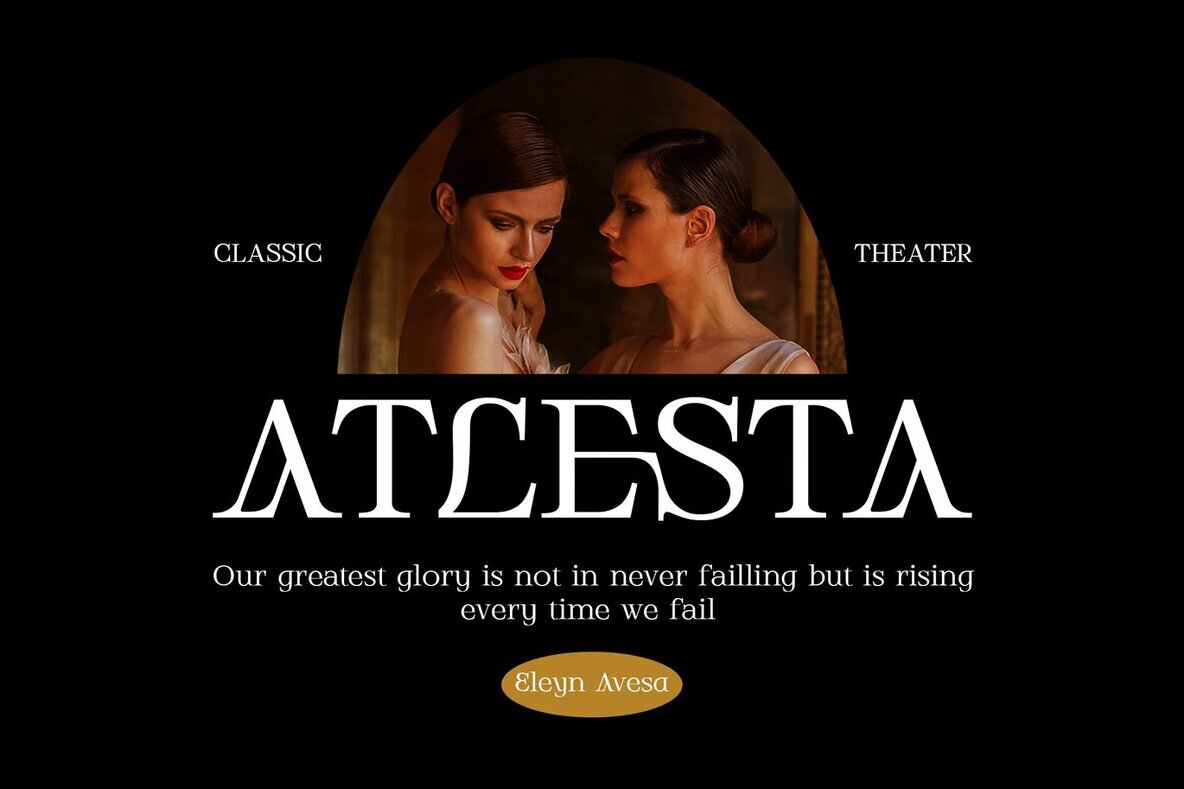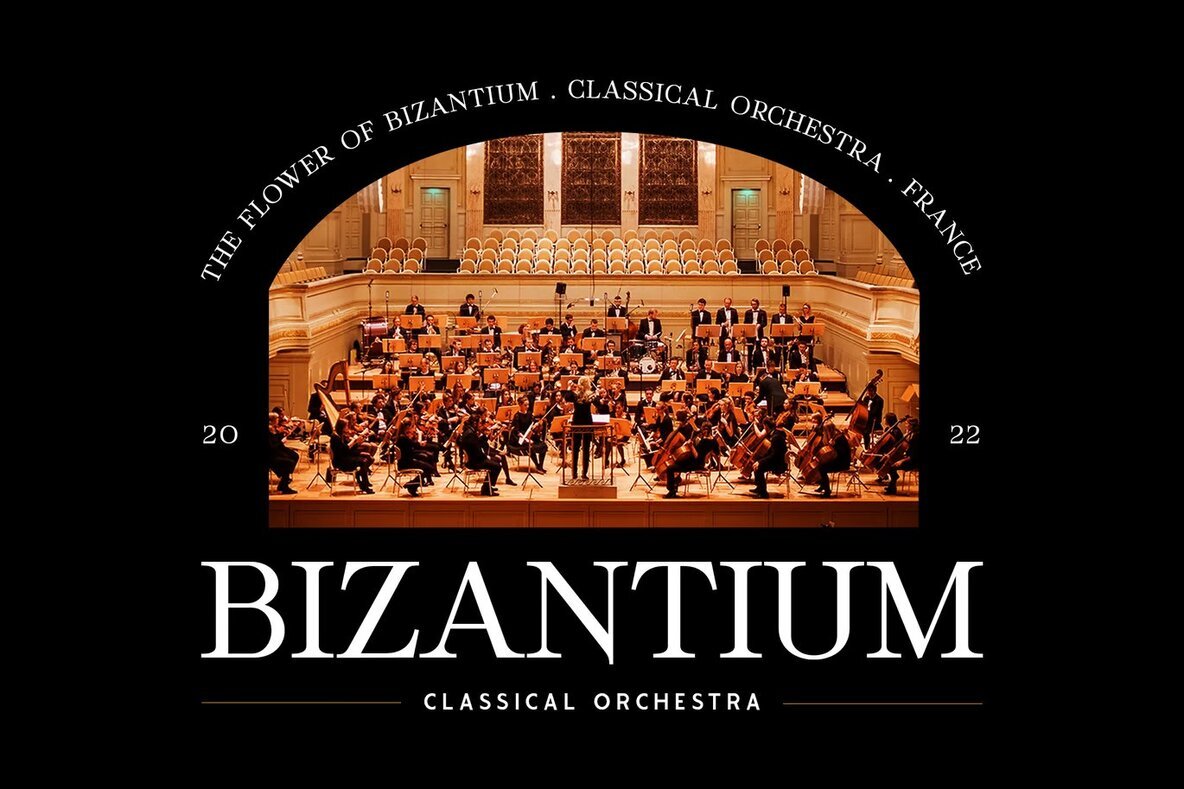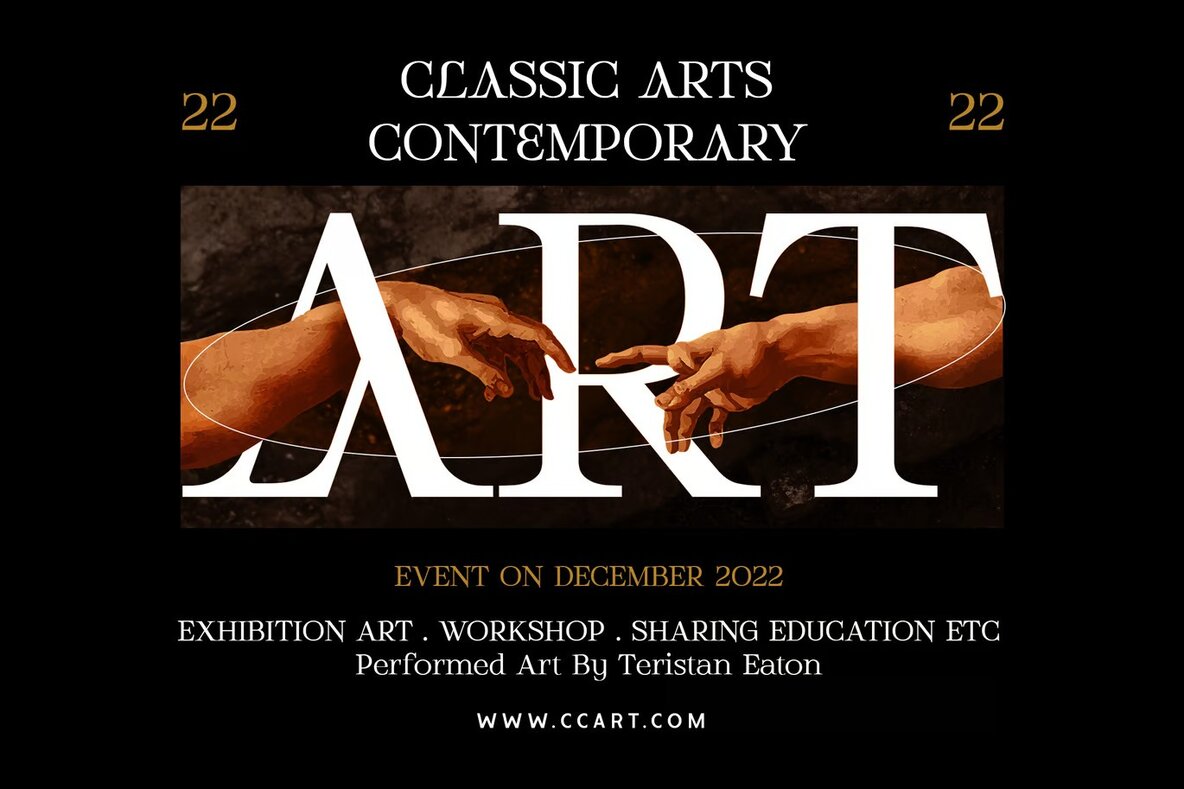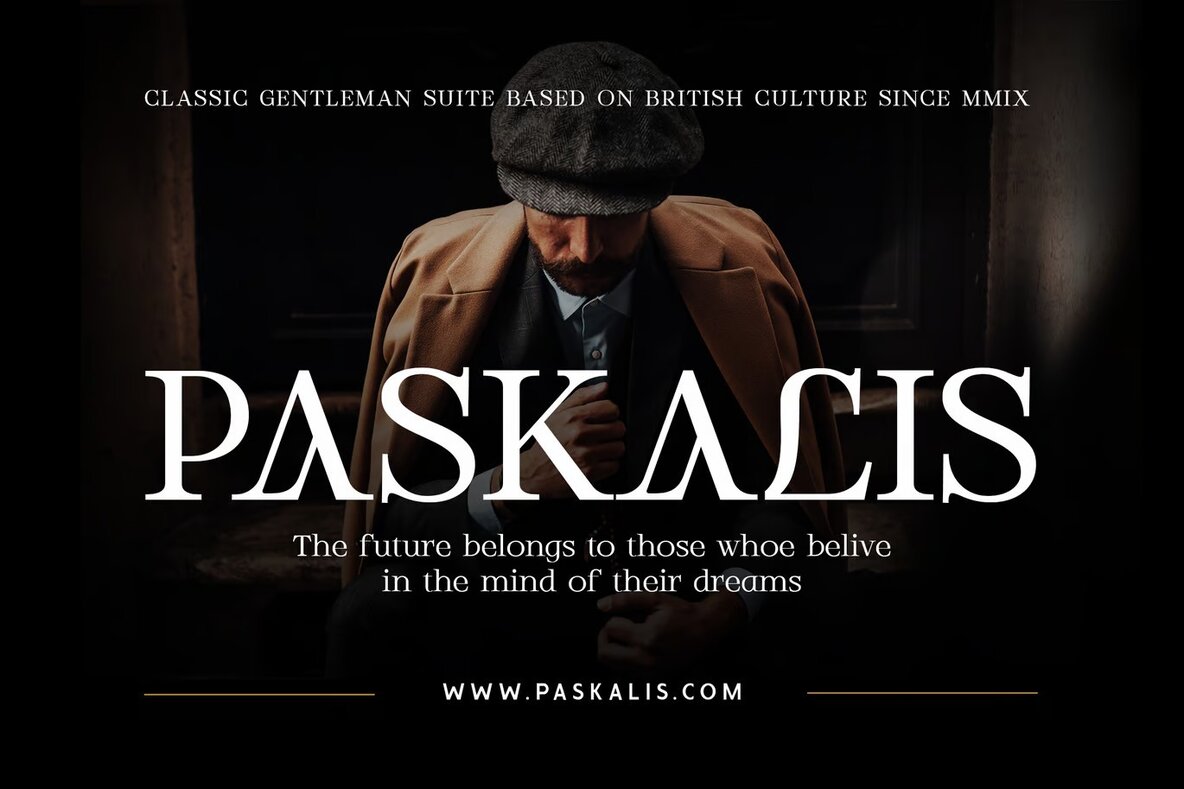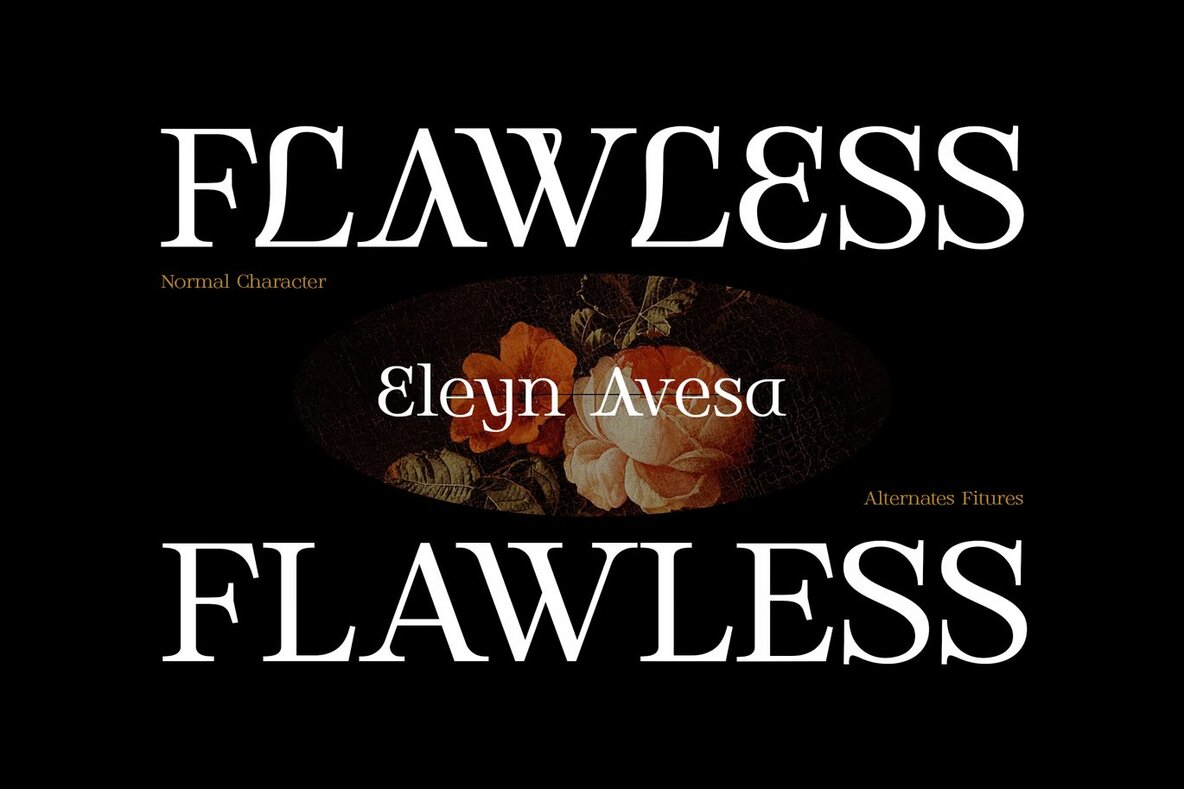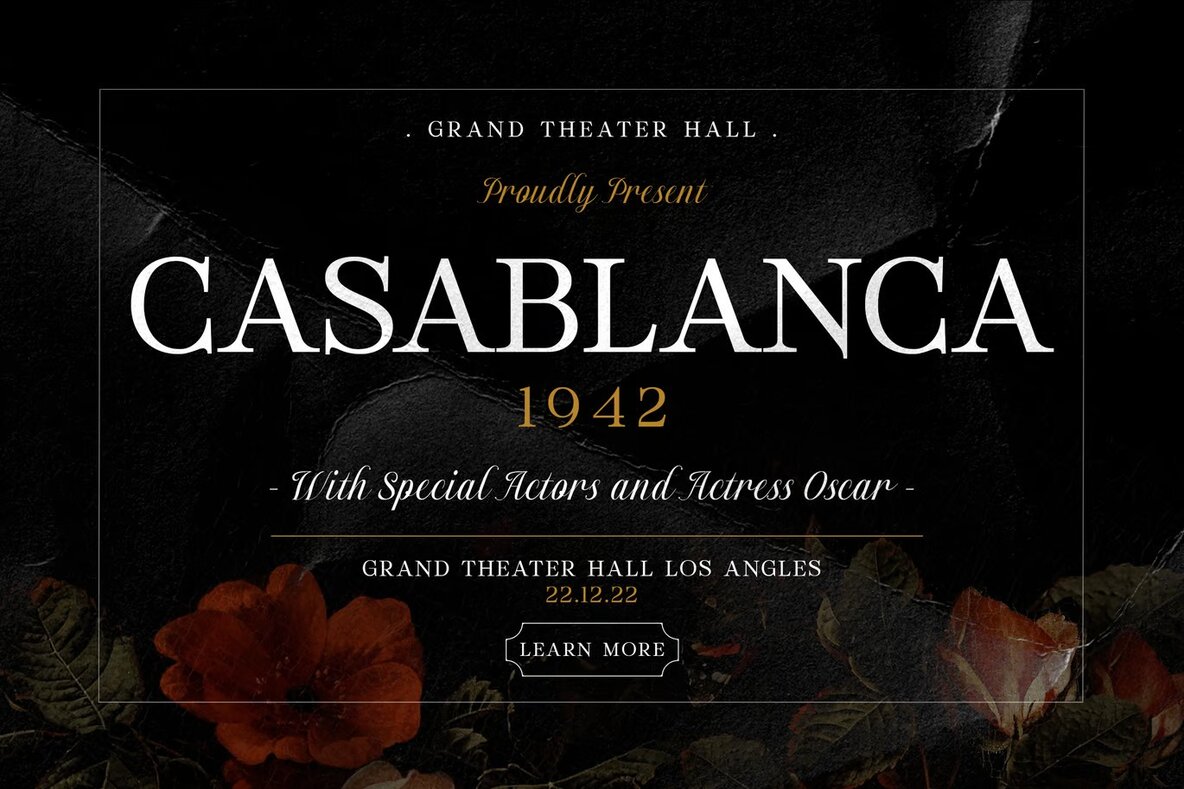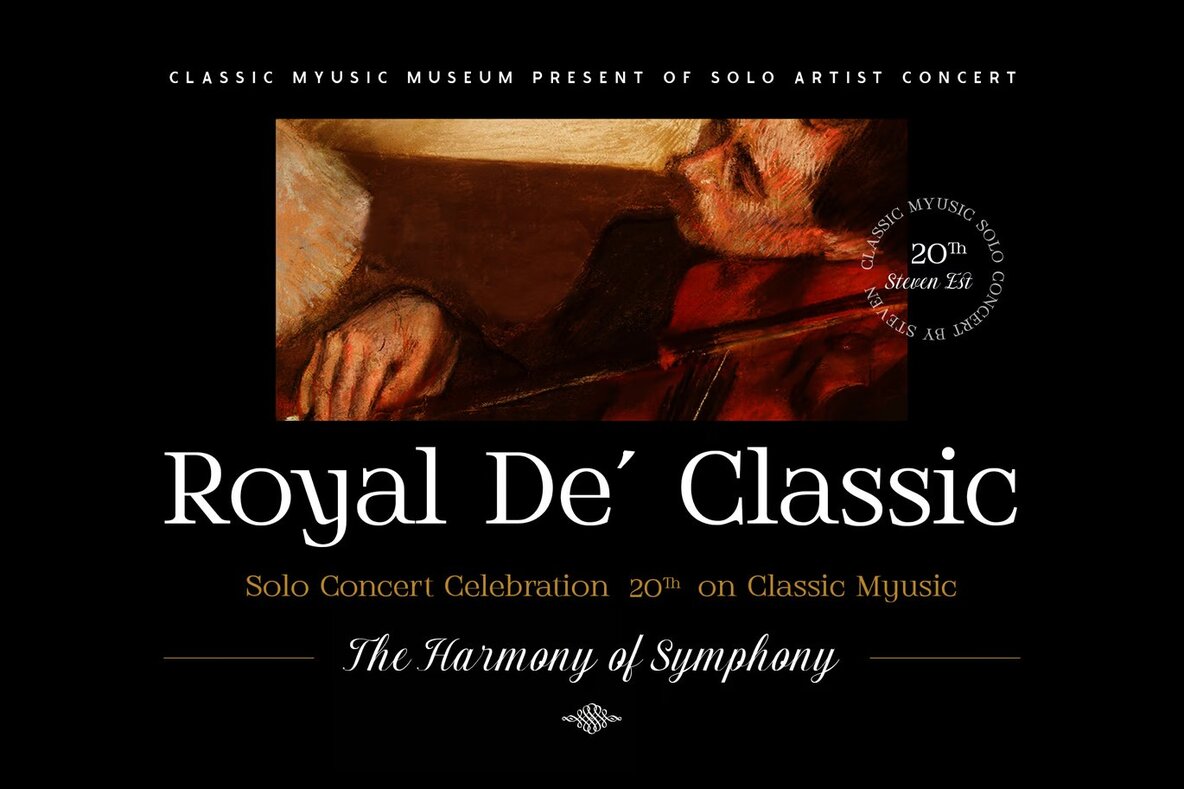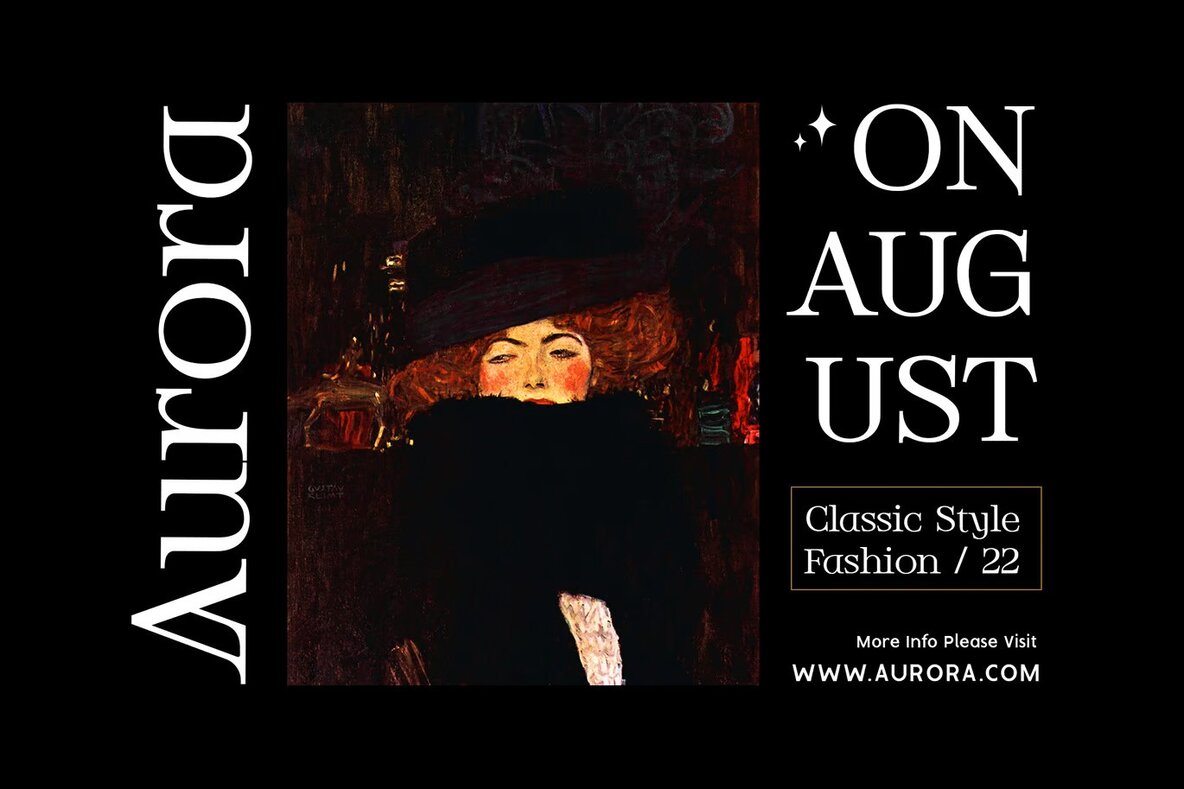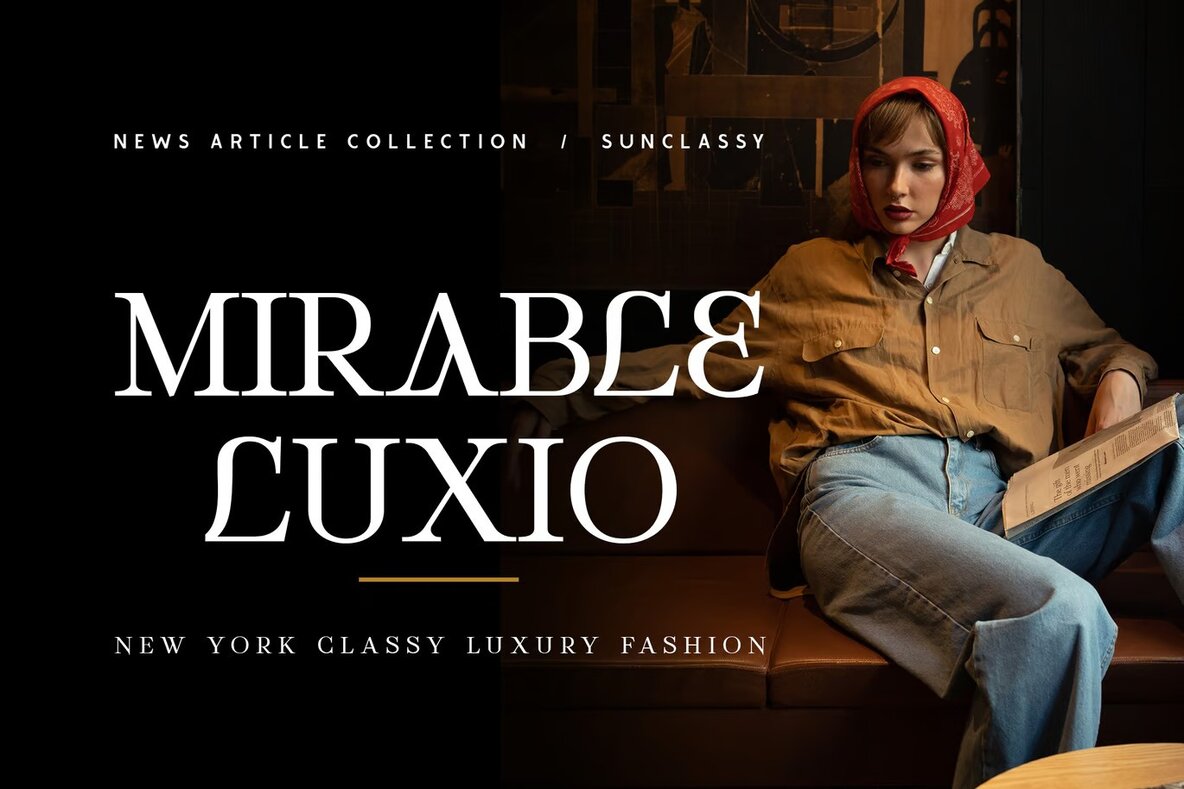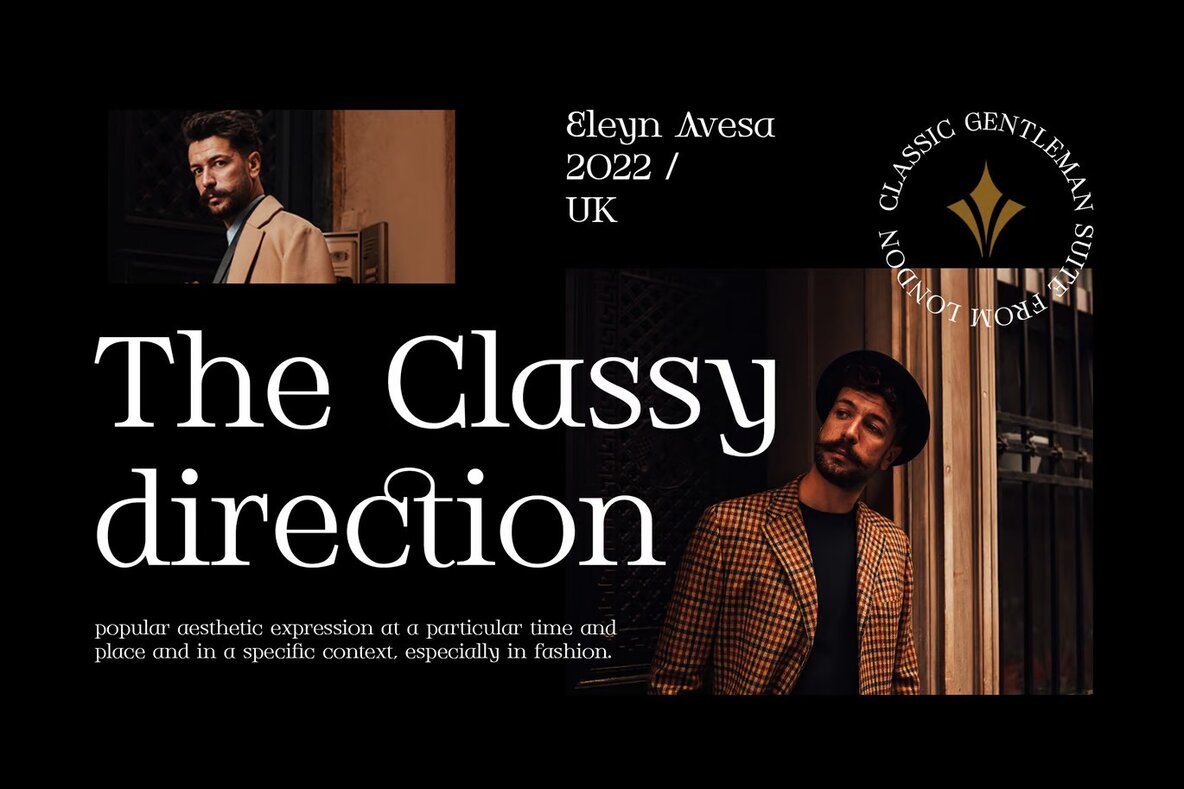
Eleyn Avesa Font
Eleyn Avesa Regular
Eleyn Avesa Serif is a classic and elegant display font that exudes a vintage and luxurious vibe. Ideal for high-end projects such as luxury logos and branding, editorial designs, cosmetics and fashion promotions, and sophisticated art galleries, this font offers a versatile appeal. Its refined serifs make it suitable for museum exhibits, historical architecture themes, boutique branding, and stylish stationery designs.
Further, Eleyn Avesa fits perfectly into modern advertising, card invitations, and art quotes. Whether you're designing for a fantasy movie, a novel cover, or special event decor, this font elevates the visual appeal with its royal and classy aesthetics. It also pairs well with home décor projects, women's magazines, and blog designs, providing a touch of sophistication and elegance to any creative endeavor.